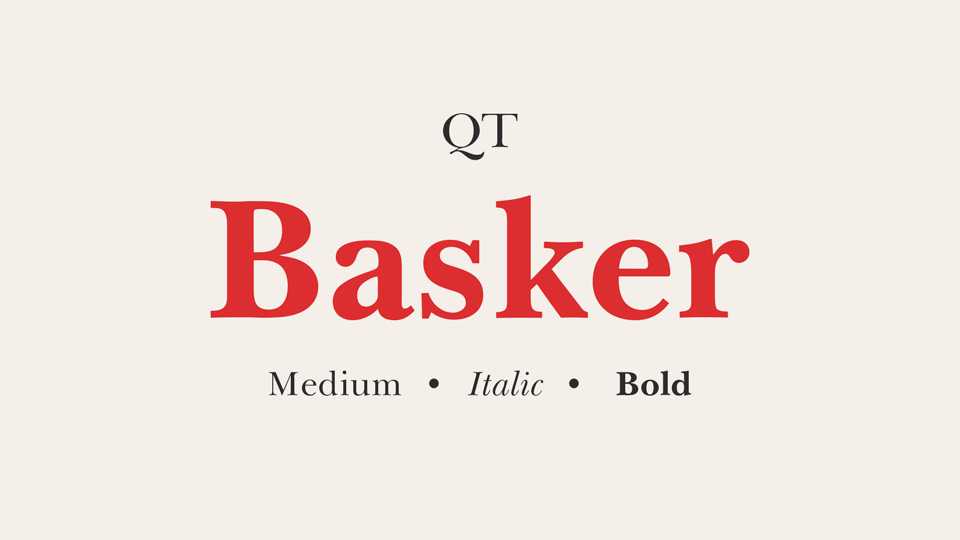
Download Basker typeface, an elegant serif font family based on the classic design of John Baskerville that bear his name in about 1752. It most known for its crisp edges, high contrast and generous proportions.